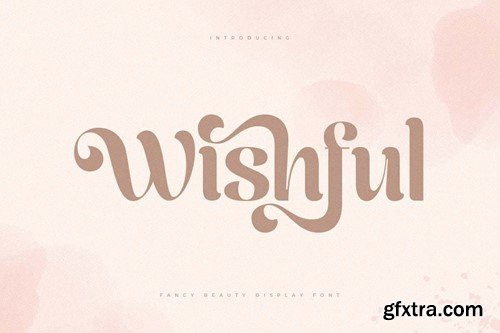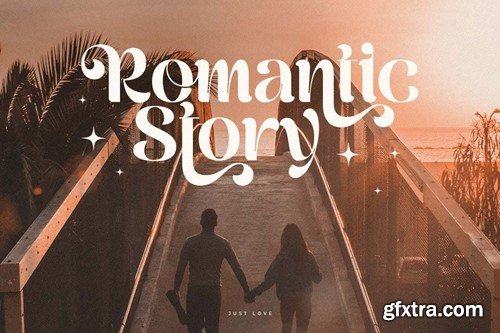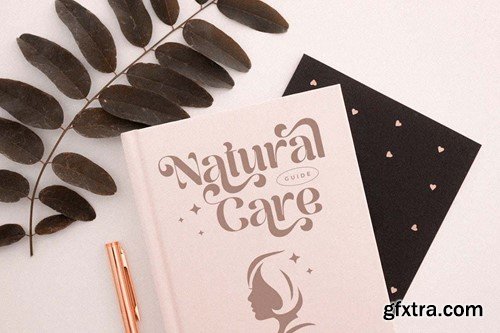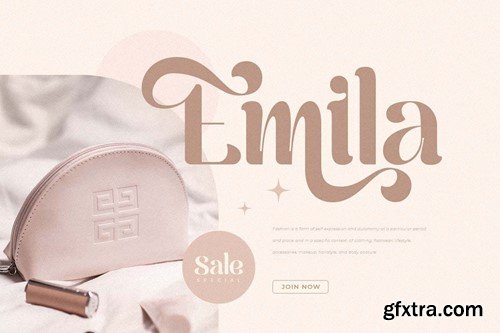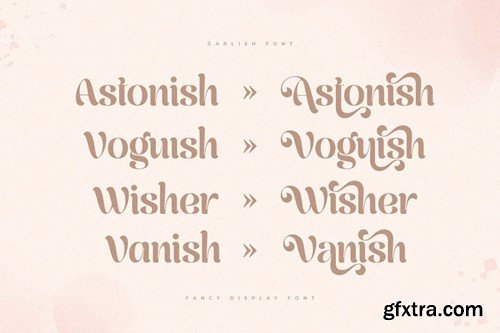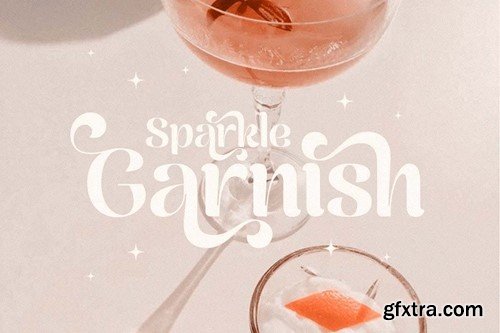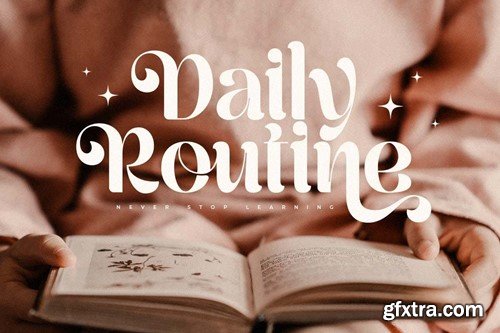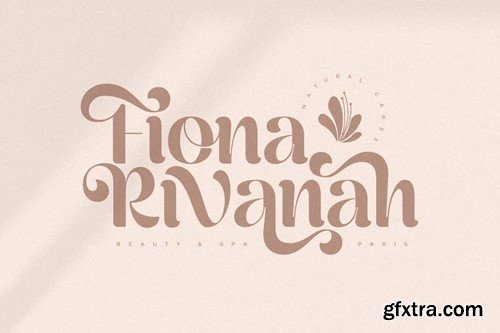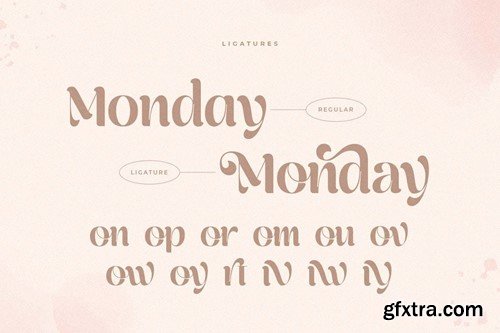
Wishfull - Fancy Beauty Display Font S88WH94
Wishfull - Fancy Beauty Display Font
An exclusive font tailored for fancy and cinematic branding, offering an elegant aesthetic to enhance your brand's allure. Crafted with unique alternates and ligatures, this font is designed to elevate the value of your brand. Whether you're a designer or a product owner seeking stylish and modern solutions, this font provides the perfect answer. Boasting an array of stylish and cinematic characters, it opens the door to endless creative possibilities, allowing you to create a myriad of variations for your unique and perfect designs.
• Unique Characters with Alternate and Ligature Characters
• Character set A-Z
• Numerals & Punctuation
• Accented Characters (West Europe)